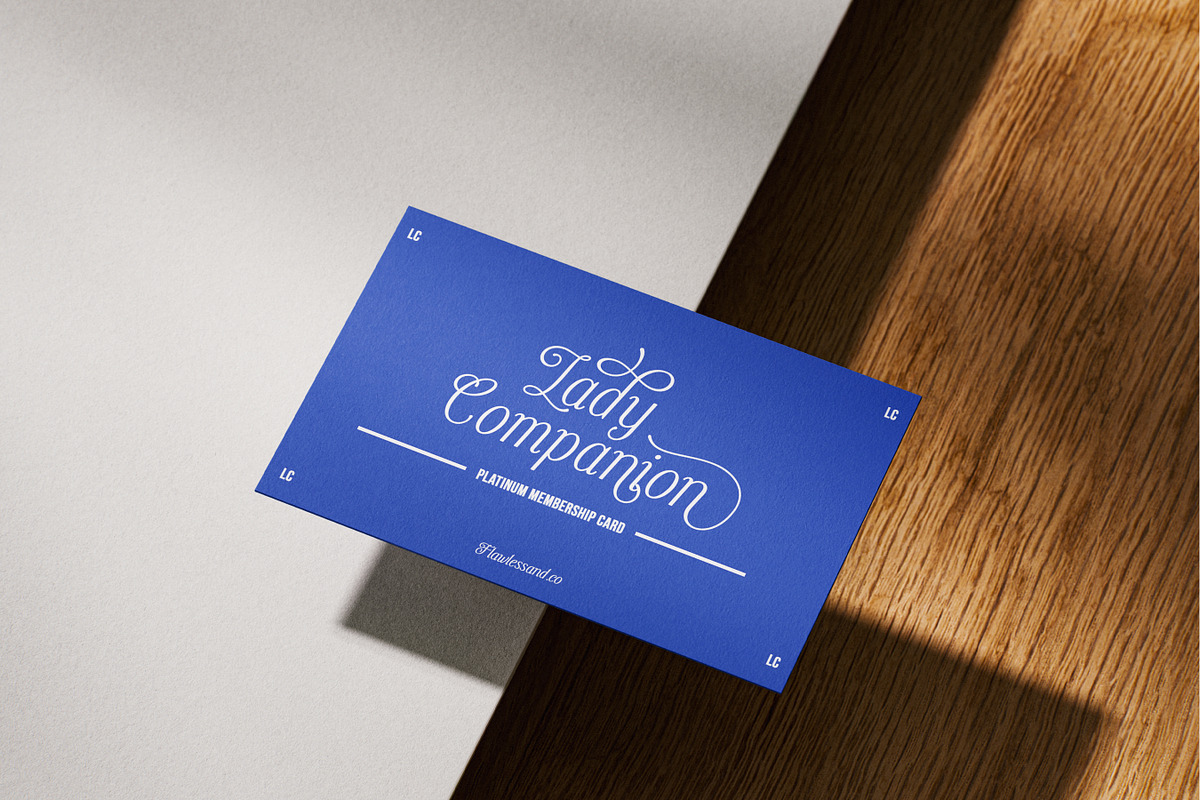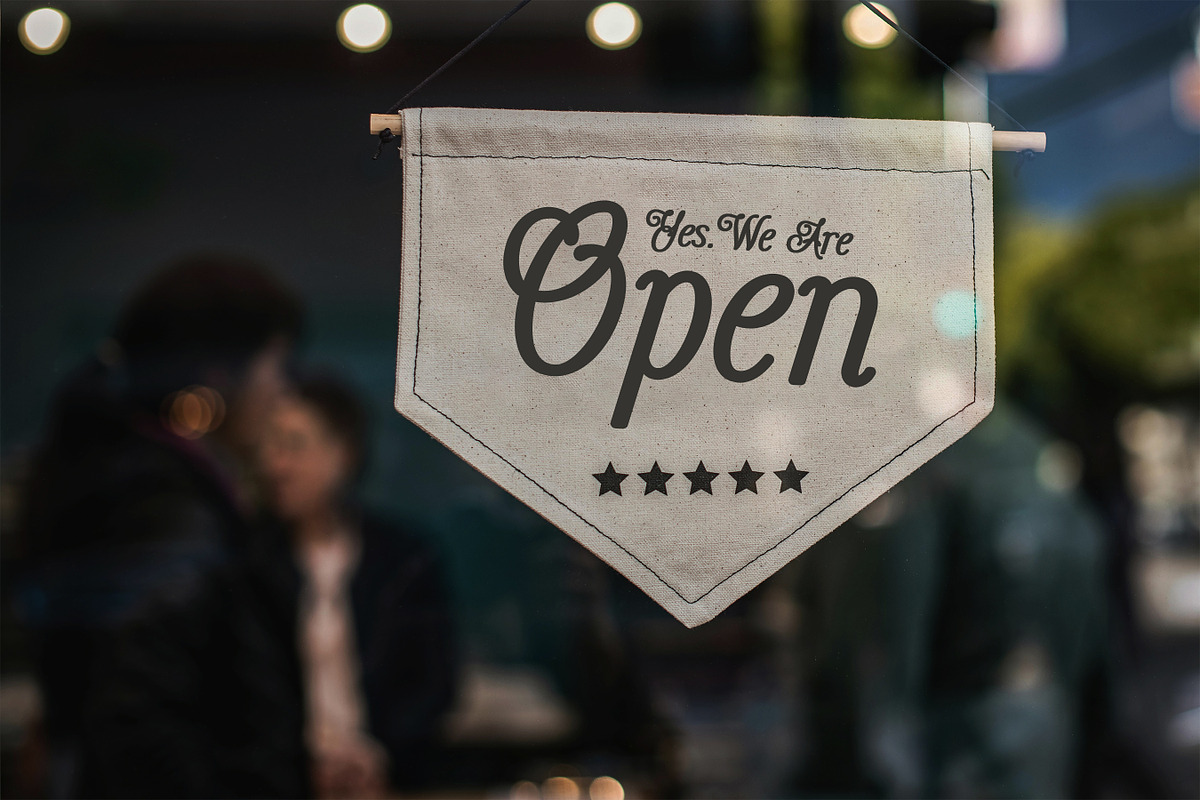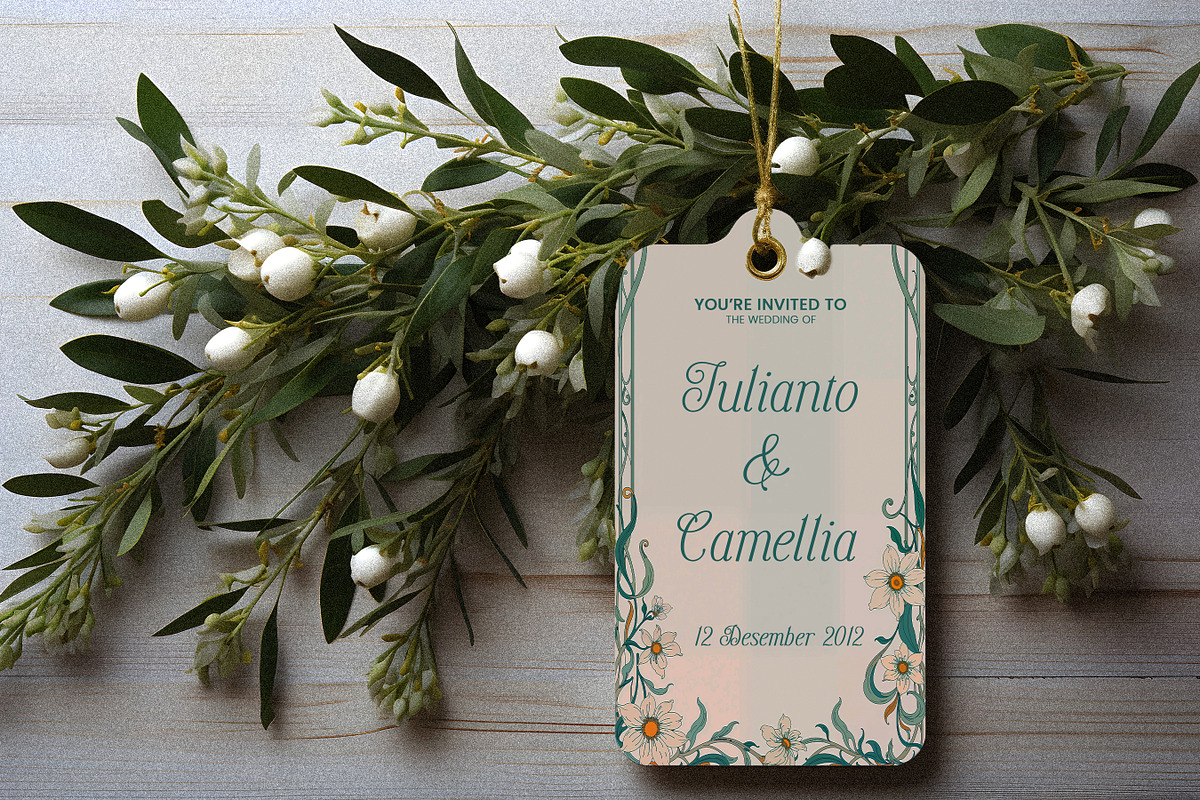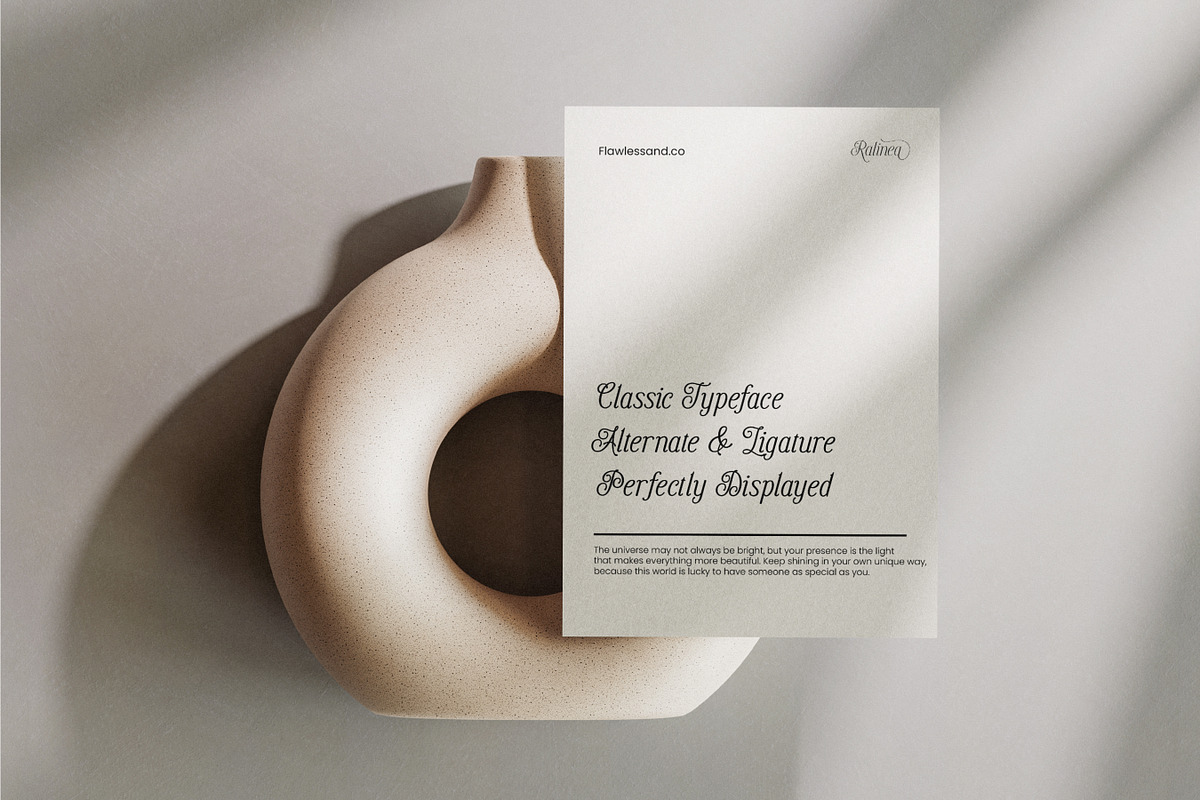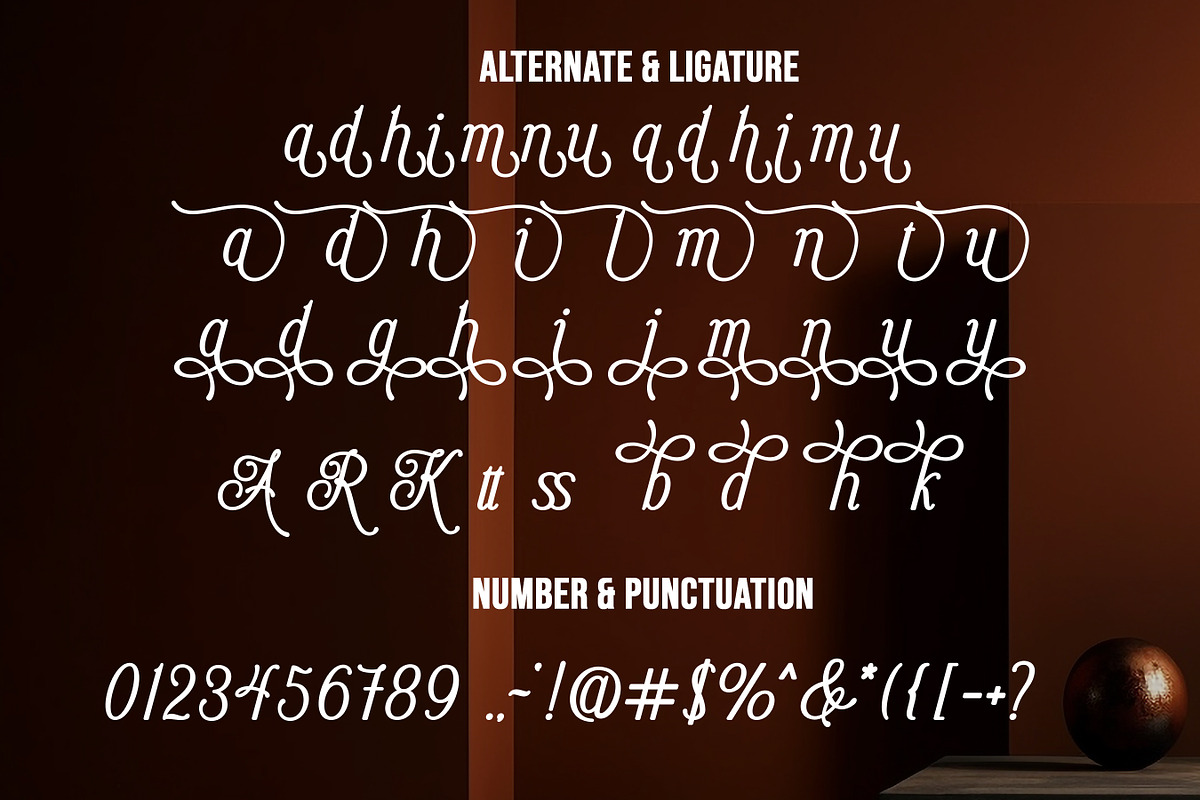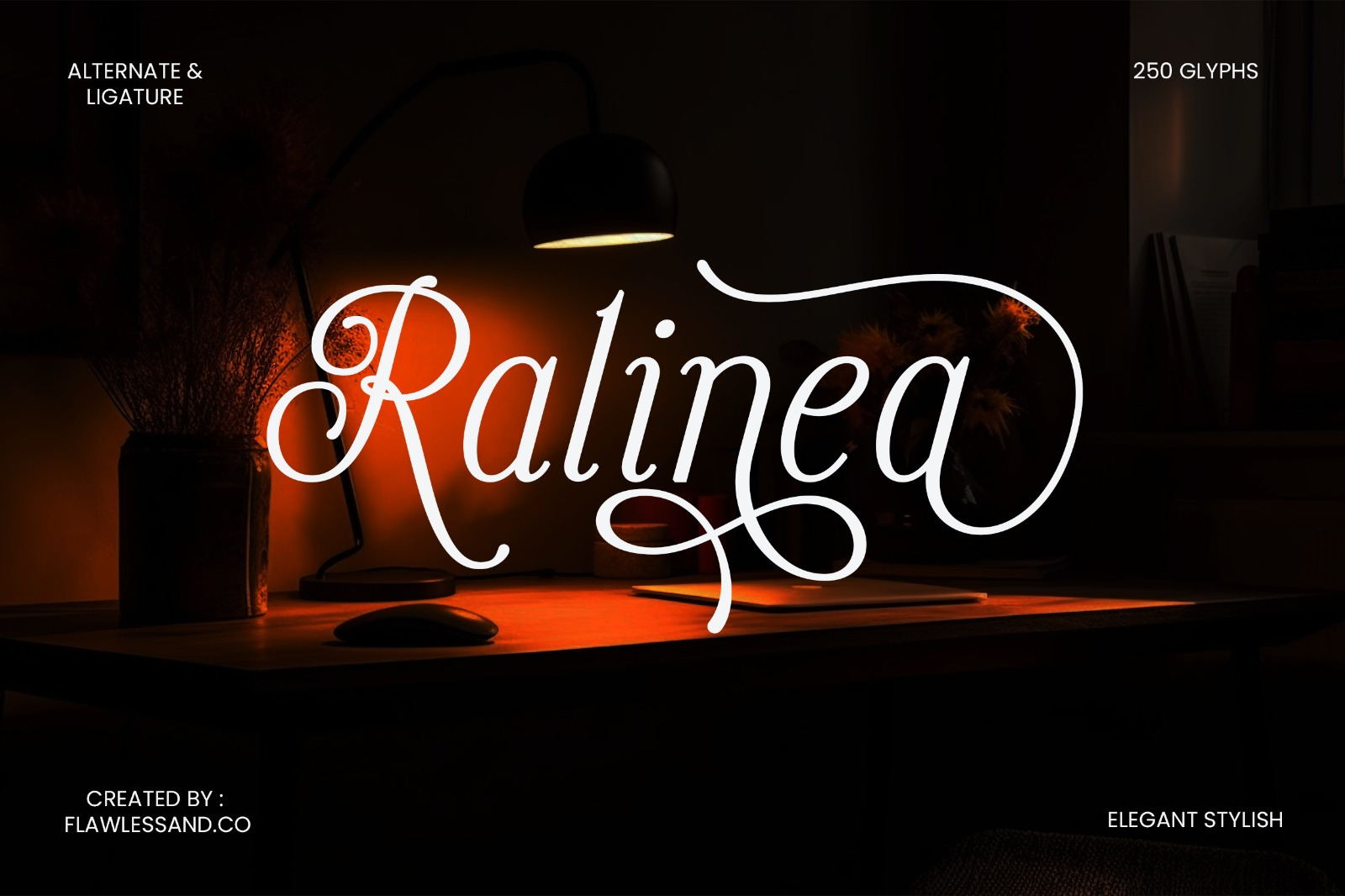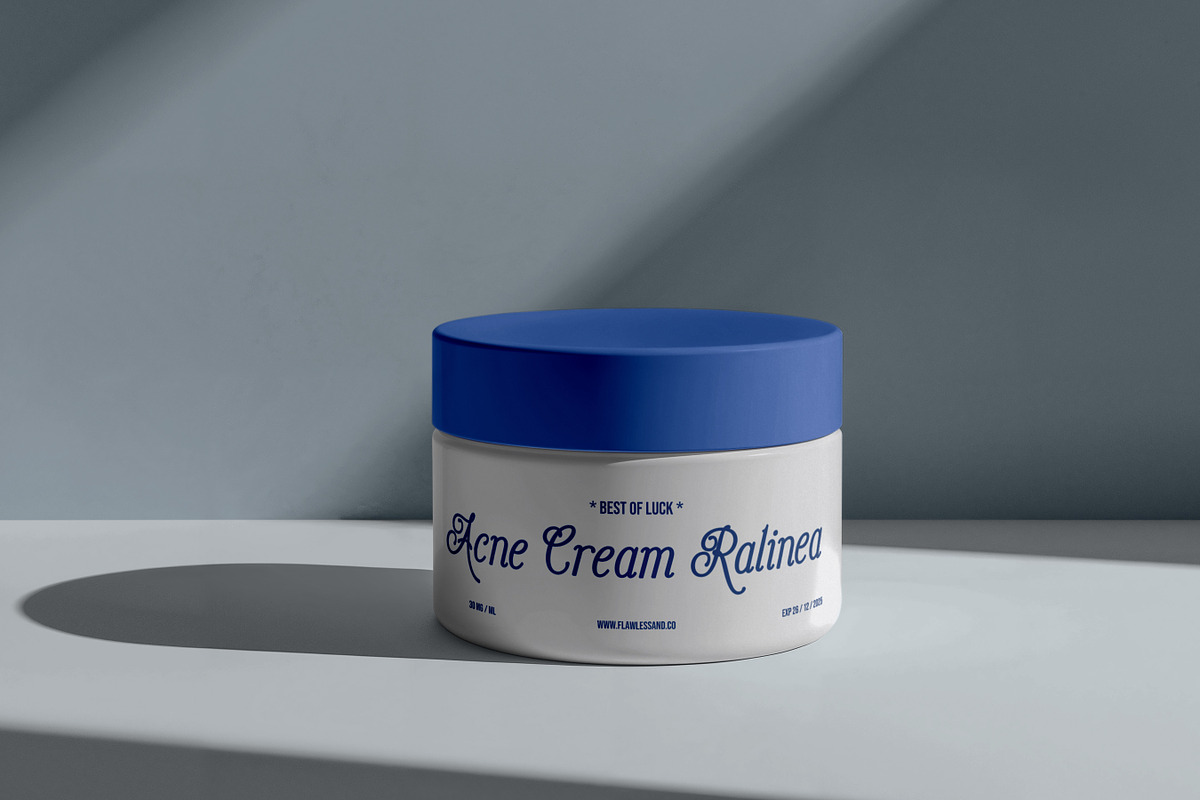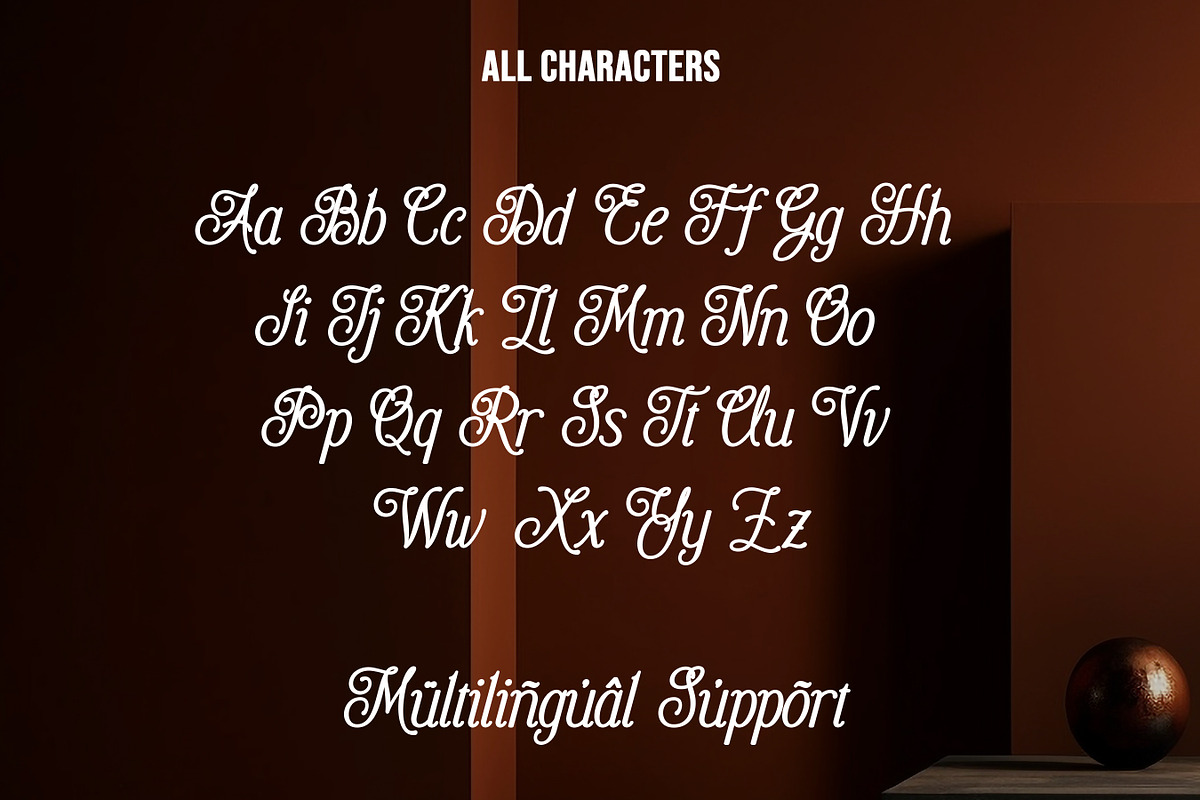
Ralinea - Script Font
Ralinea is a graceful script font that embodies elegance and fluidity. Its smooth strokes and delicate curves create a sophisticated and timeless appeal, making it perfect for wedding invitations, branding, product packaging, and social media designs. Whether used for logos or stylish headlines, Ralinea adds a touch of charm and refinement to any project.
Multilingual Uppercase alphabet A-Z Lowercase alphabet a-z Numbers 0-9 Some punctuation Alternates & Ligatures